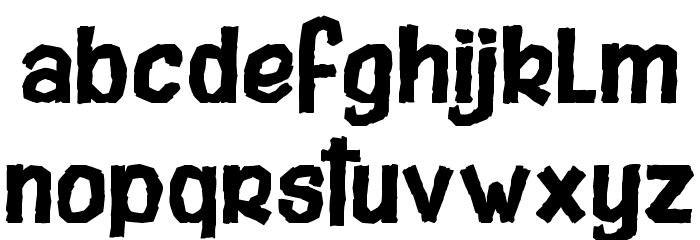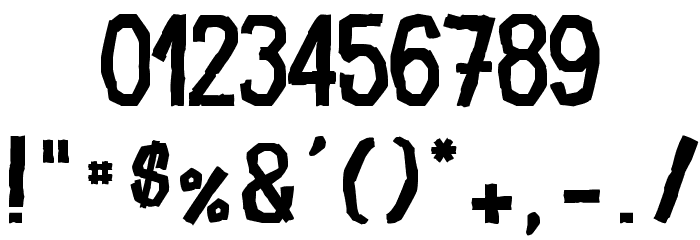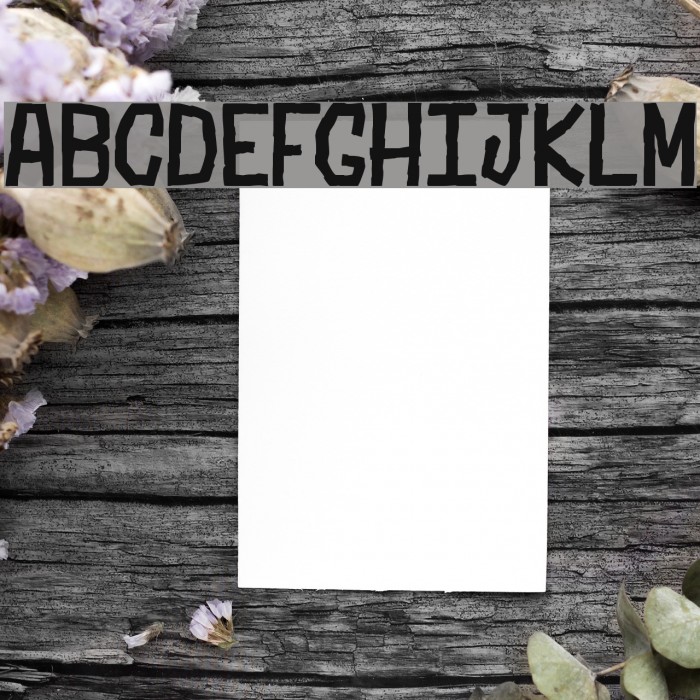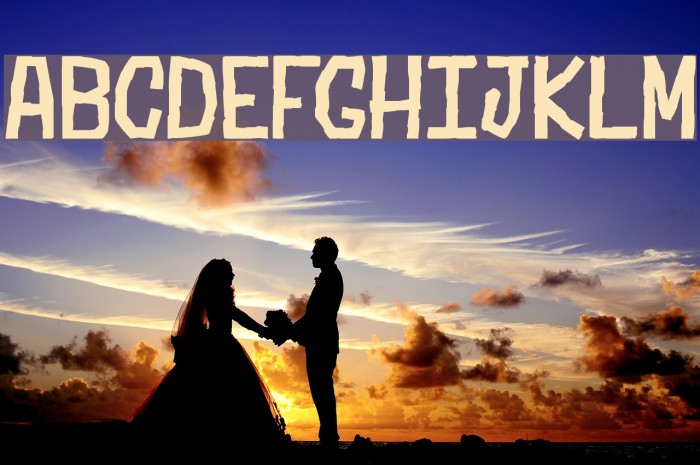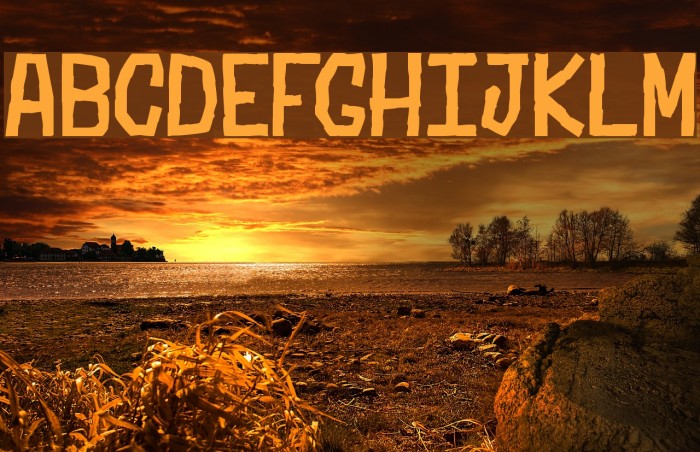
Stubborn Shark Font
This font exhibits a bold and rugged style, characterized by its uneven, hand-drawn appearance. The letters have a rough, textured edge, giving them a dynamic and energetic feel. The uppercase and lowercase characters maintain a consistent height, while the numerals and special characters follow the same bold, irregular pattern. The font's unique style is reminiscent of graffiti or street art, making it stand out with its distinctive, rebellious look. Its thick strokes and irregular shapes create a sense of movement and spontaneity, perfect for projects that require a bold statement.
A bold, rugged font with a hand-drawn, graffiti-like style.
- Font: Stubborn Shark
- Proposed Projects: Ideal for street art designs, posters, album covers, and branding that requires a bold, edgy look.